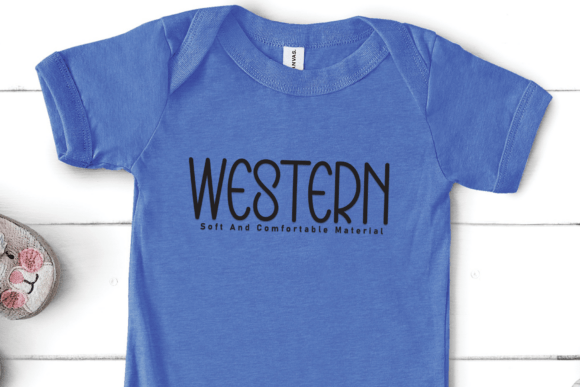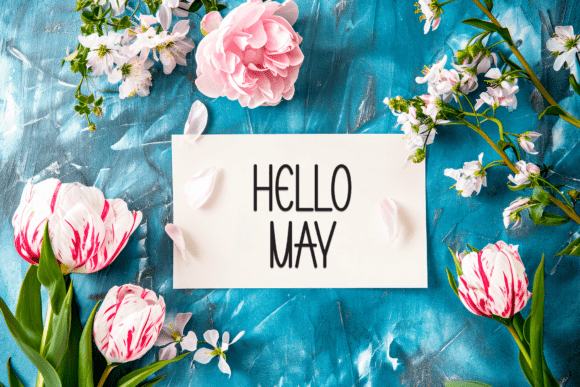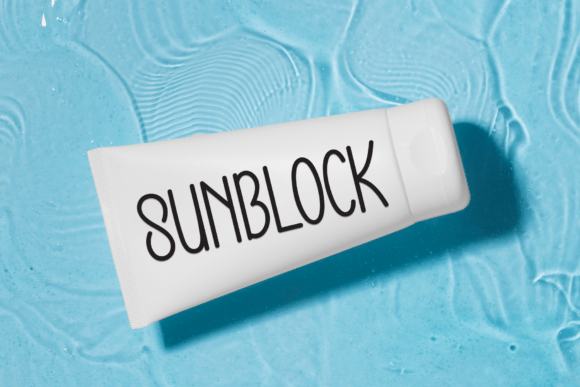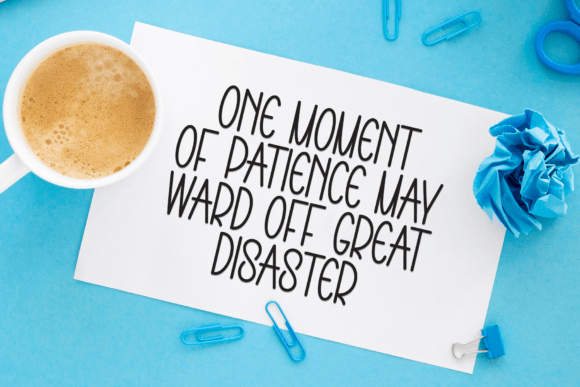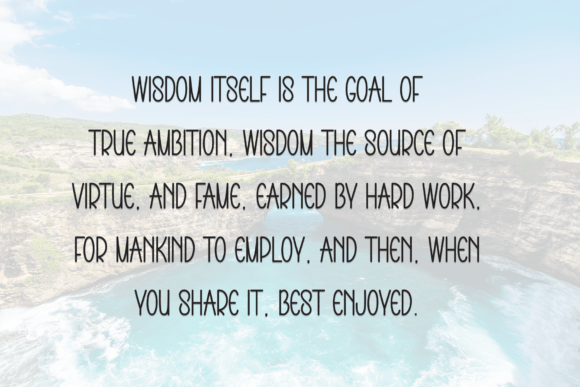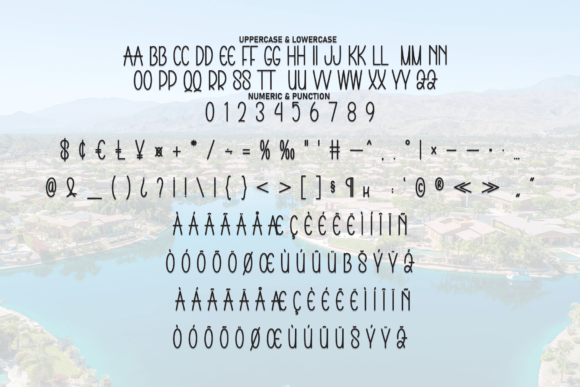
The Perfect Blend of Casual Cool: Introducing California Font
As designers, we’ve all been there – staring at a blank canvas, trying to capture the essence of a brand or product in a single, perfect image. It’s a moment of creative clarity, where the right font can make all the difference between a forgettable design and a lasting impression. For those seeking to add a touch of West Coast charm to their work, California Font is an ideal choice.
This versatile font combines the simplicity of modern typography with the friendly, approachable vibe of a handwritten script. With its clean lines, balanced letterforms, and subtle rounded edges, California Font is perfect for branding, headlines, packaging, and digital content. Whether you’re looking to create a cohesive brand identity or simply add some visual interest to your designs, this font is a valuable addition to any designer’s toolkit.
California Font Key Features
- Font Family: California is a sans-serif font family designed by Christian Robertson.
- Unique Characteristics: The font features a modern, clean design with a distinctive rounded edge, making it suitable for digital and print applications.
- Font Variants: The California font family includes multiple variants, such as regular, italic, bold, and bold italic, to provide flexibility in typography.
Designer Review: California Font
As a designer, I’ve had the chance to play around with California Font, and I’m sharing my honest thoughts on it. ✨
- California Font has a laid-back, friendly vibe that’s perfect for casual projects. It’s great for titles, headings, and body text.
- The font is highly legible, making it easy to read on both digital and print materials.
- It’s a great choice for creating a relaxed, West Coast-inspired aesthetic.
- ⚠️ California Font might be too casual for formal or professional projects. It’s best used in a more relaxed, informal setting.
- The font lacks a clear personality or distinctiveness, which might make it blend in with other fonts.
- Some users might find the font too plain or generic.
Overall, California Font is a solid choice for designers who want a friendly, approachable font for casual projects. While it might not be the most exciting or unique option, it gets the job done. If you’re looking for a font that’s easy to read and works well in a relaxed setting, California Font is worth considering.
Getting the Most Out of the California Font
Here are some tips for getting the most out of the California font:
- Use it for creative and casual designs, such as social media posts, flyers, and brochures.
- Pair it with other fonts to create a unique and eye-catching design.
- Experiment with different font sizes and colors to add emphasis and visual interest.
The California font is commonly used for:
- Social media posts and ads.
- Marketing materials, such as flyers and brochures.
- Restaurant and cafe menus.
- Travel and tourism promotional materials.